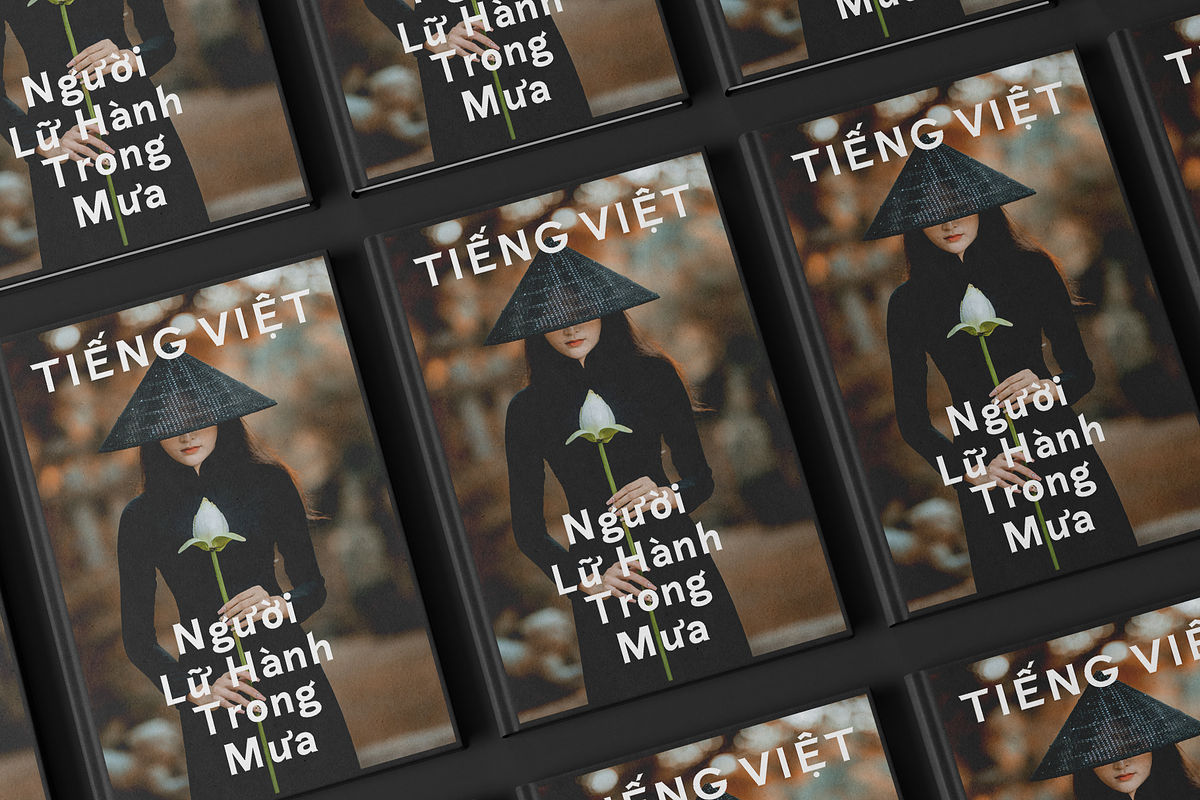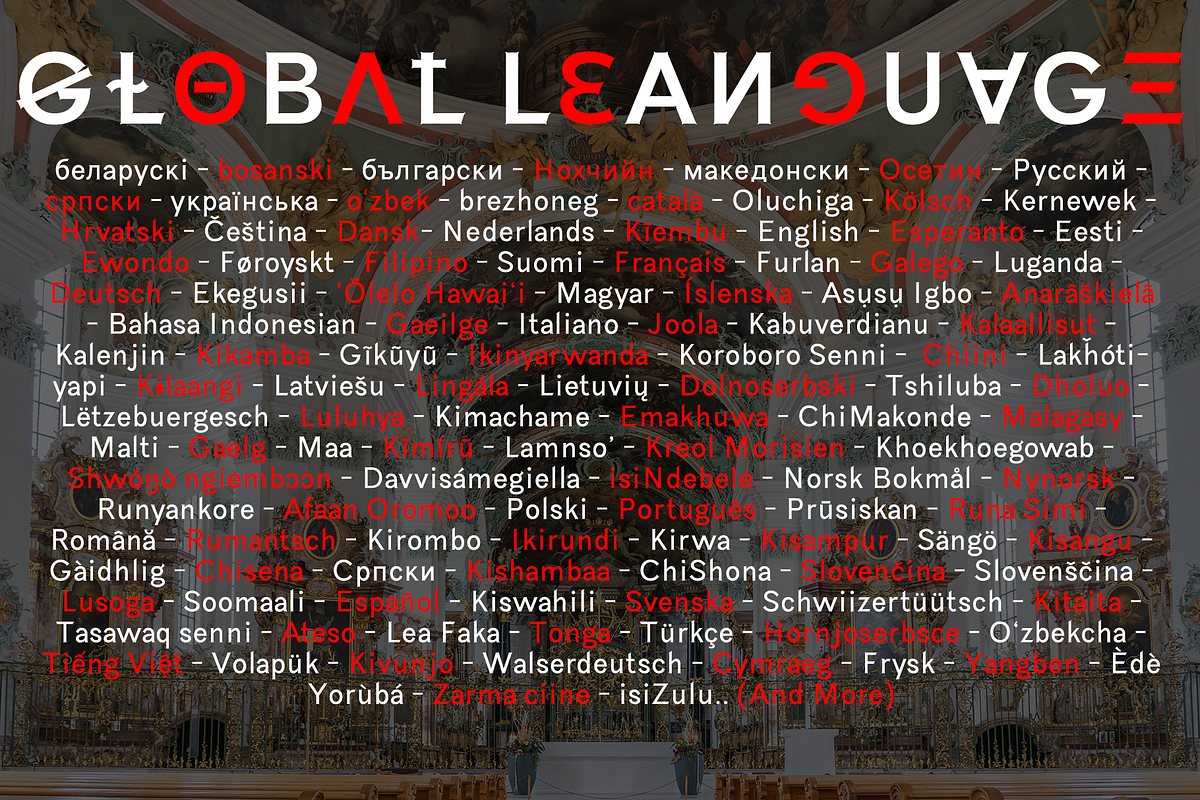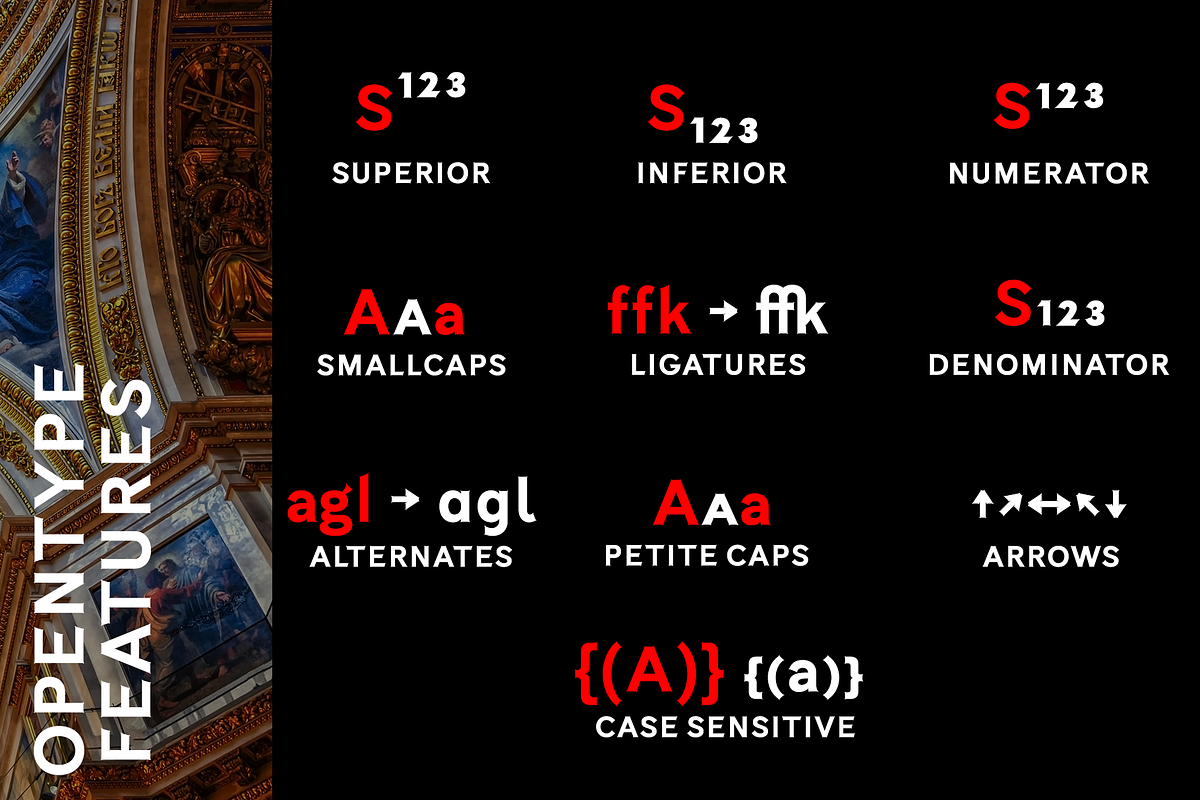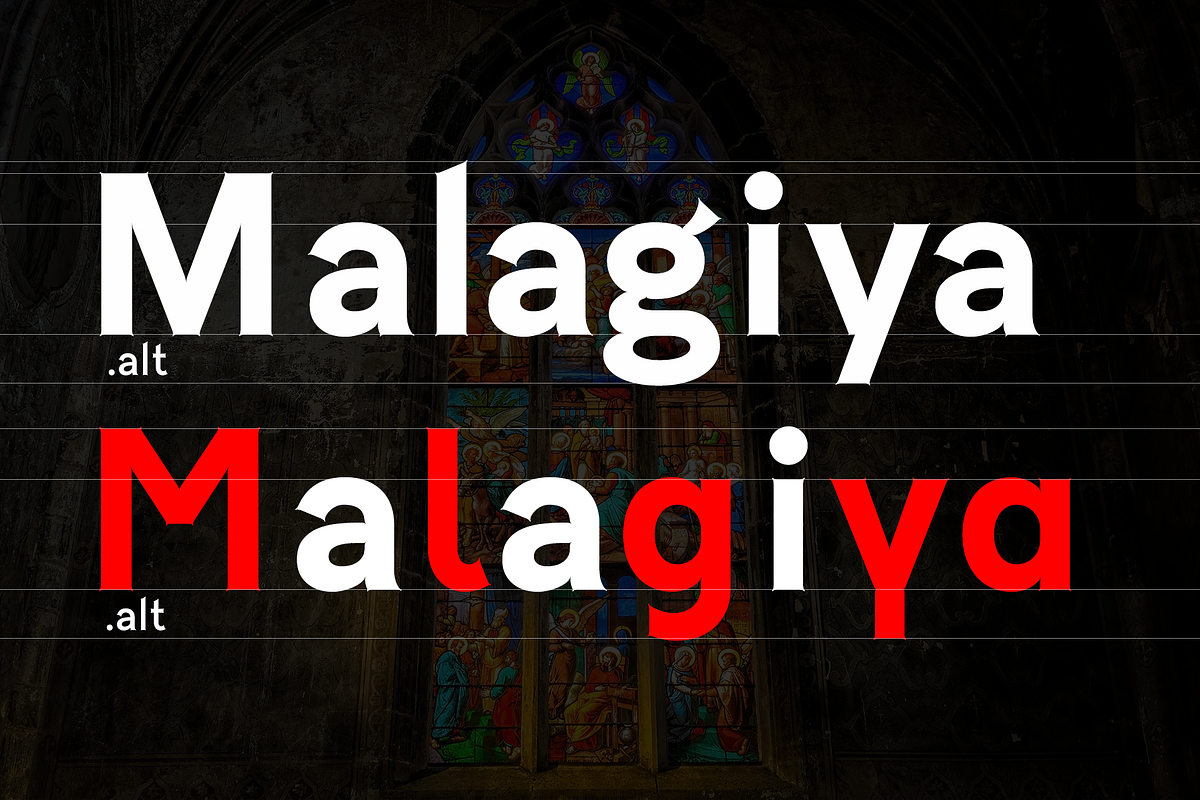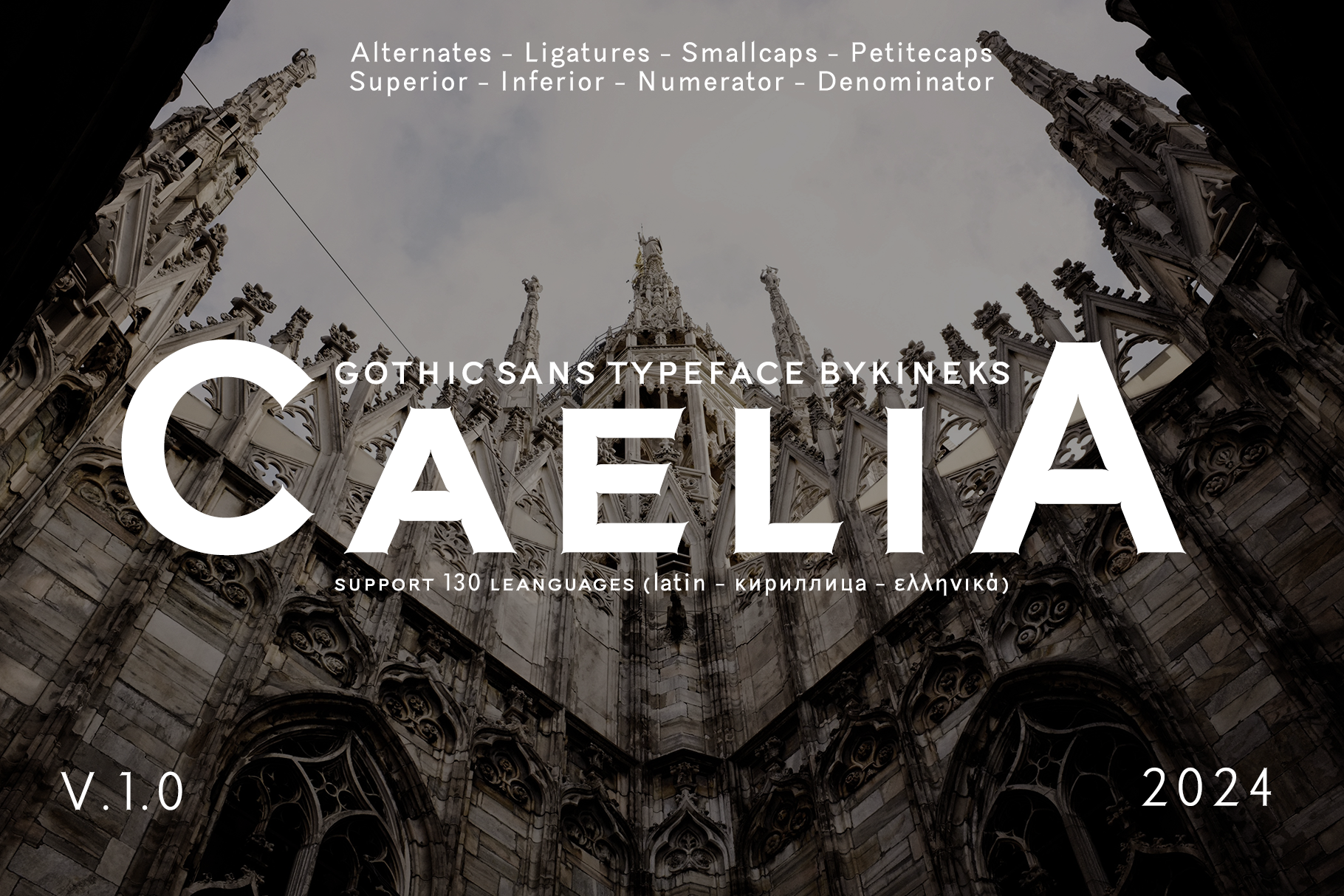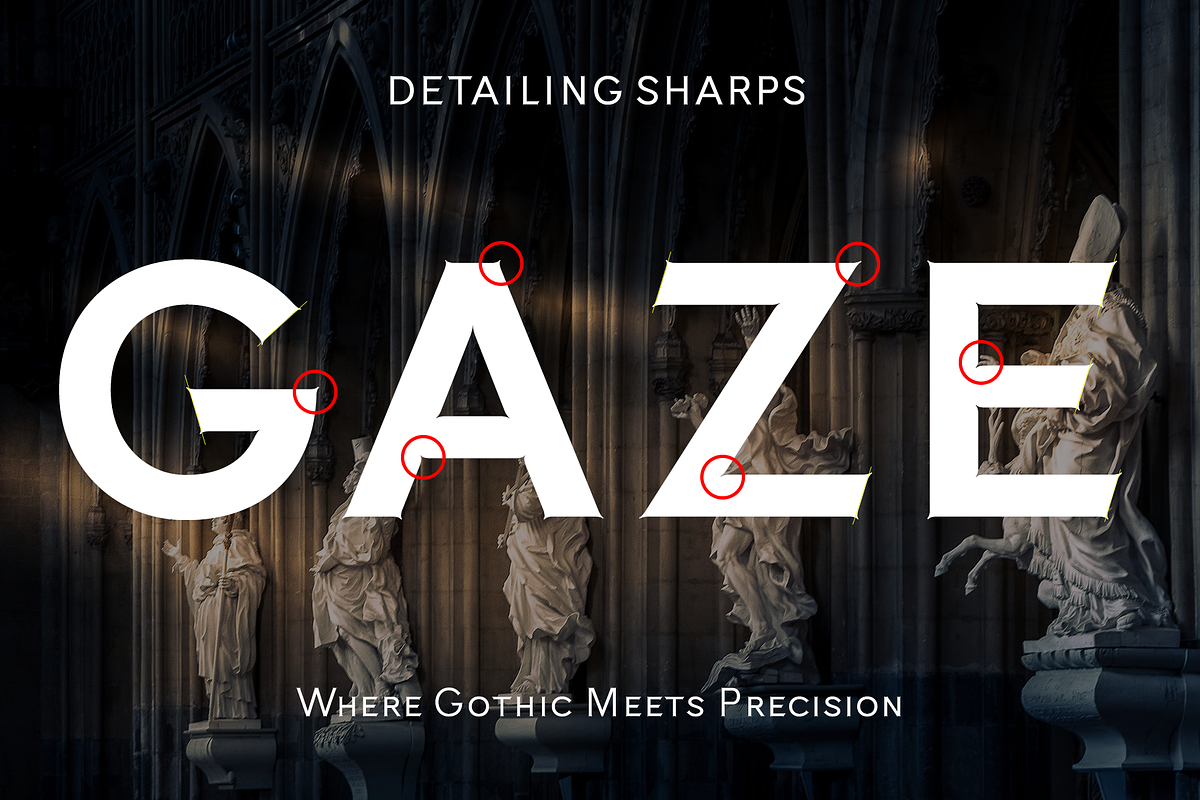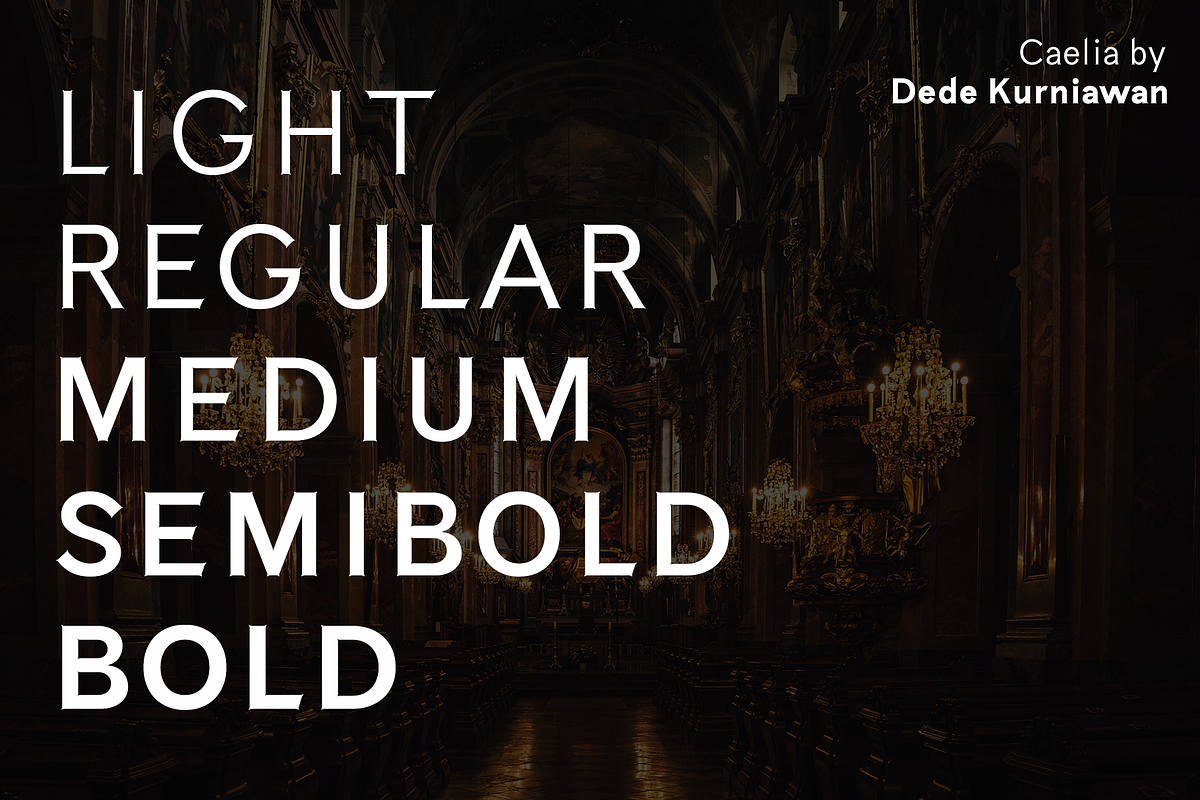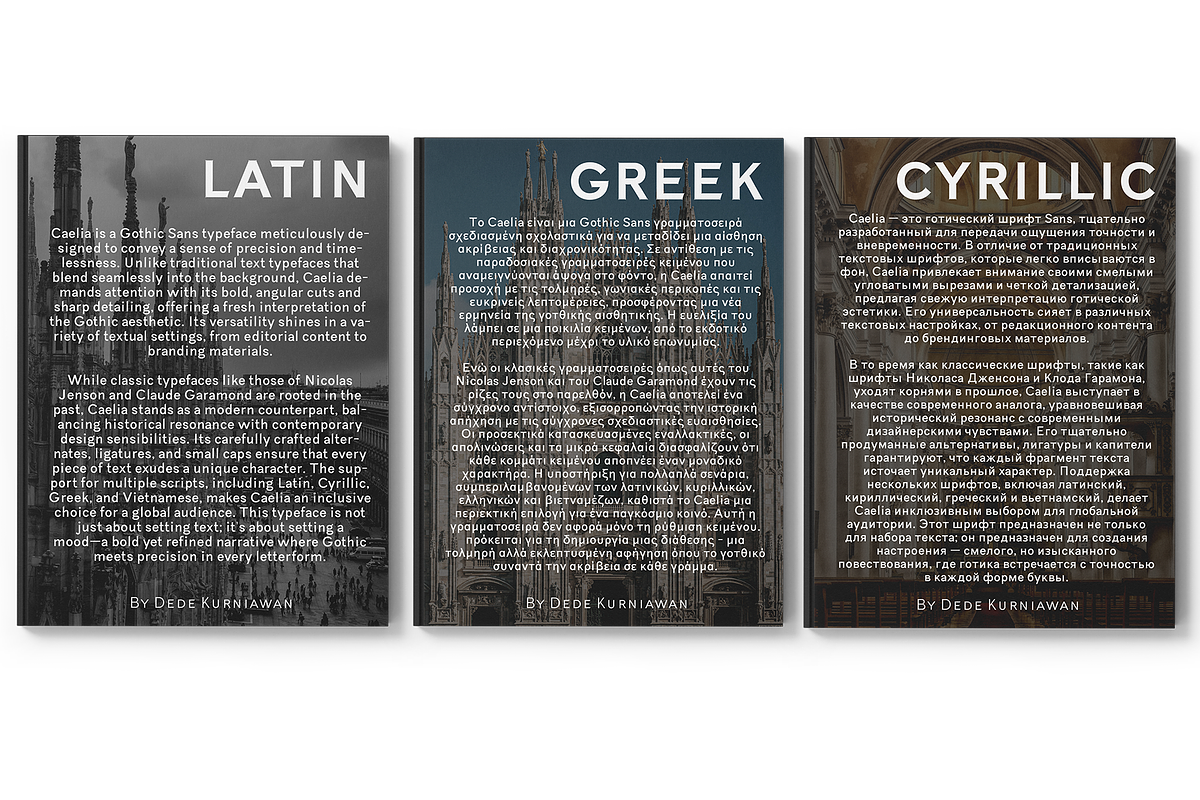
Caelia | Gothic Sans Typeface
Caelia is a bold yet elegant Gothic Sans typeface designed by Kineks, inspired by Gothic architecture and crafted to offer a perfect balance between strength and subtlety. With sharp, clean lines and fluid sans-serif styling, Caelia is ideal for a wide range of design applications such as branding, posters, editorial, and web. Supporting over 130 languages, including Latin, Cyrillic, and Greek, this versatile font comes packed with advanced OpenType features like ligatures, alternates, smallcaps, petite caps, numerators, denominators, superior and inferior text, and case-sensitive symbols. Whether you're creating striking visual identities or polished typographic compositions, Caelia delivers the versatility and elegance needed for global, modern design.